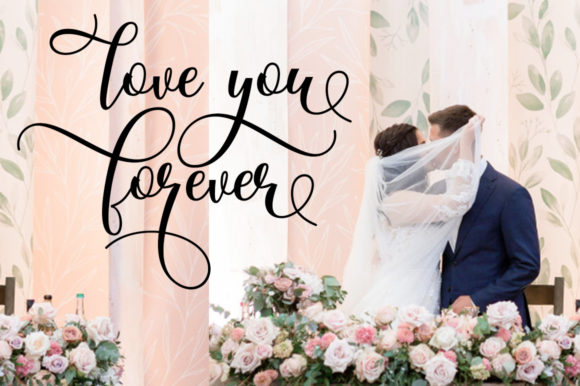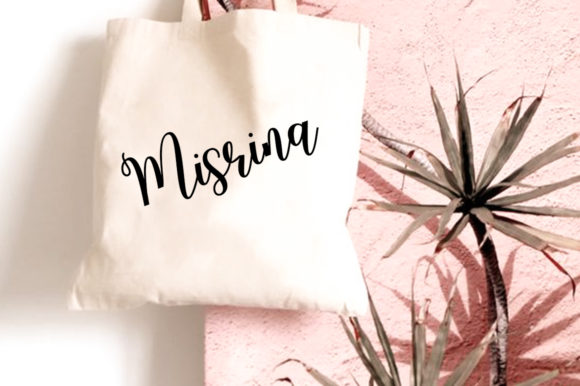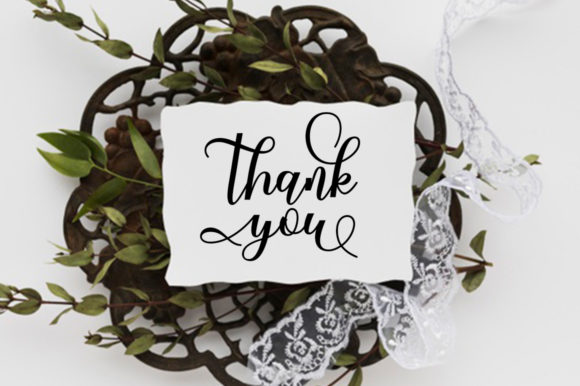
Introduction to Meidarni Font
Have you ever stumbled upon a font that perfectly captures the essence of your creative vision? For designers, finding that one special font can be a game-changer. It’s like stumbling upon a hidden treasure that elevates your project from ordinary to extraordinary. For me, that treasure is the Meidarni Font.
Imagine creating a beautiful wedding invitation that exudes elegance and sophistication, or crafting a set of social media posts that are both eye-catching and memorable. With the Meidarni Font, the possibilities are endless. This high-quality, free download font is a design resource that’s sure to inspire your next creative project.
Whether you’re working on a personal project or collaborating with a client, the Meidarni Font offers a wealth of special features, including alternate glyphs and ligatures, to help you achieve a truly authentic look. Plus, with its transparent background, you can easily customize your design to fit your unique style. In this article, we’ll delve deeper into the world of Meidarni Font and explore its many benefits for designers.
Key Features of Meidarni Font
- Unique, elegant design suitable for creative projects, offering a high-quality design resource.
- Meidarni Font features a transparent background, making it ideal for use on any design or creative project.
- High-resolution design, suitable for printing and digital use at 300 DPI.
- Meidarni Font is a large font family, consisting of multiple weights and styles to cater to various design needs.
Honest Review: Meidarni Font
I recently had the chance to work with the Meidarni Font, and I must say it’s a great addition to any designer’s toolkit. The Meidarni Font is a free download, which is always a bonus, but what really stood out to me was the high quality of the font itself.
- ✨ The Meidarni Font is incredibly versatile and works well in a variety of creative projects, from logo design to print materials.
- ⚠️ The Meidarni Font is a relatively simple font, which may not be suitable for more complex or intricate designs.
Overall, I’m impressed with the Meidarni Font. While it may not be perfect, it’s a great resource for designers who are looking for a high-quality, free font that can add some creativity to their projects.
Getting the Most Out of Meidarni Font
To get the most out of Meidarni Font, use it in conjunction with other high-quality design resources. Experiment with different font sizes, styles, and colors to create unique and eye-catching designs.
Meidarni Font is ideal for creative projects such as logo design, infographics, and social media graphics. Its high-quality design and transparent background make it perfect for creating visually appealing and engaging designs.